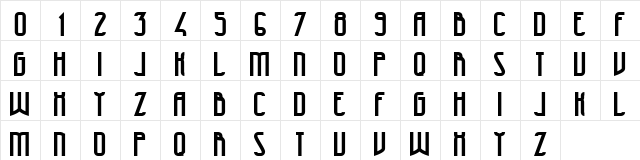
47 is a composed and adaptable typeface that performs quietly and consistently across a wide range of design contexts. Its bold stroke weight gives it real presence on the page.
Pro Tip: Use 47 in both headline and body roles to test its range before committing to a single application.